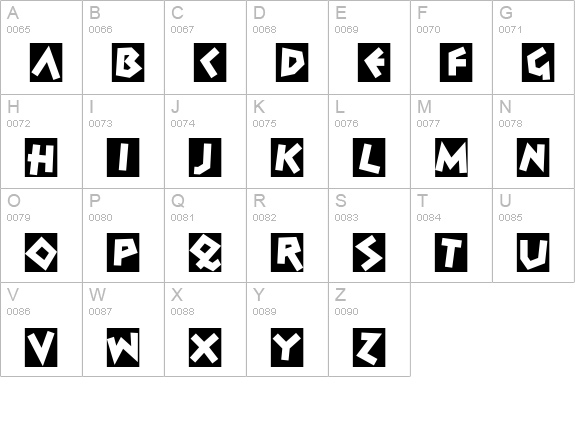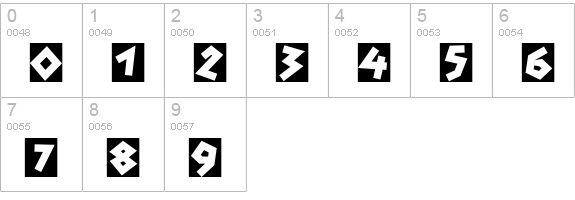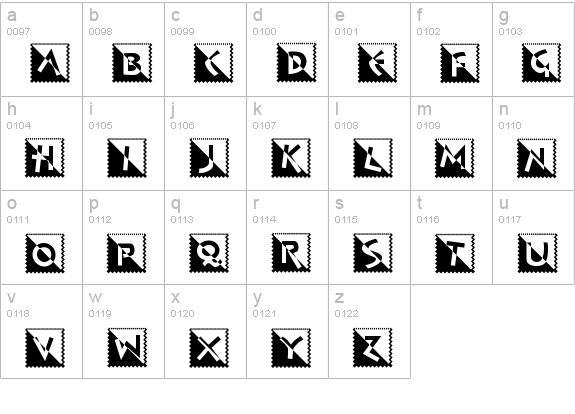
Spontan Initials Font Details
Introducing Spontan Initials, a captivating font that effortlessly captures attention with its elegant and stylish design. This font is a perfect blend of sophistication and creativity, making it ideal for projects that require a touch of class and uniqueness. With its intricate strokes and carefully crafted letterforms, Spontan Initials brings a sense of luxury and exclusivity to any design. What sets Spontan Initials apart is not just its impeccable aesthetics, but also the fact that it is freely available to download at FontsMarket.com. Yes, that's right - you can enjoy the beauty and versatility of this font without spending a penny! Whether you're a professional designer looking to add a new gem to your font collection or a casual user in search of a stylish typeface for your personal projects, Spontan Initials is the perfect choice. With its extensive character set, Spontan Initials caters to various design needs. From logos and branding materials to invitations, greeting cards, and social media graphics, this font will make your creations stand out from the crowd. Its versatility allows it to adapt to both formal and informal contexts, adding a touch of sophistication to any project. Spontan Initials is not just a font; it's a statement. It represents the freedom to express your creativity without any limitations. So why wait? Head over to FontsMarket.com and download this remarkable font today. Unleash your imagination and let Spontan Initials elevate your designs to new heights.